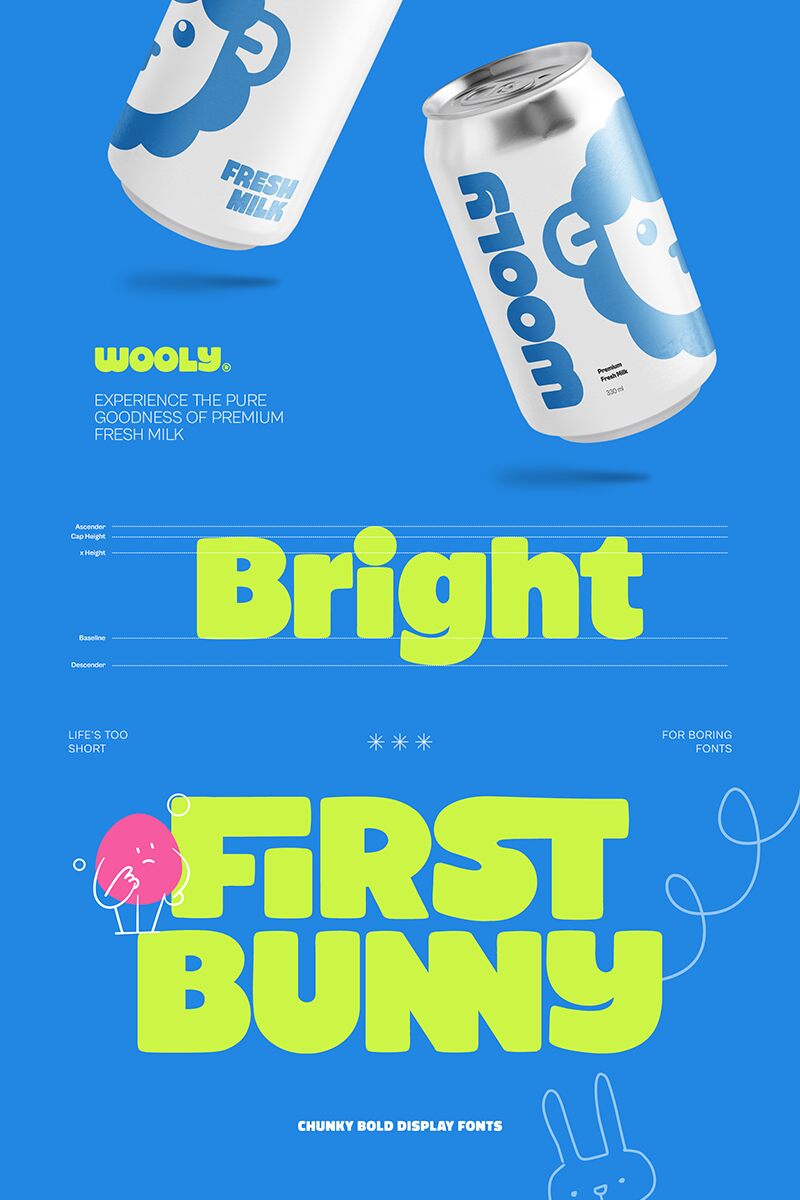
First Bunny Normal
First Bunny font by Namara Creative is a free groovy display typeface that lands on the page like a soft, squishy sticker. Its chunky, rounded shapes, tight rhythm, and heavy weight create a loud, bouncy presence that feels joyful rather than shouty. Letters look almost inflated, with smooth curves and dense black forms that make color, gradients, and textures really pop in your layouts.
Using First Bunny as a hero headline instantly gives kids’ branding, birthday invitations, candy packaging, and playful poster art a fun, approachable voice. This free font also works beautifully for social media graphics, stickers, and YouTube thumbnails where you want bold text that stays legible at a glance. Pair First Bunny with a simple geometric sans for body copy, and keep it large so those bubbly curves can really breathe.